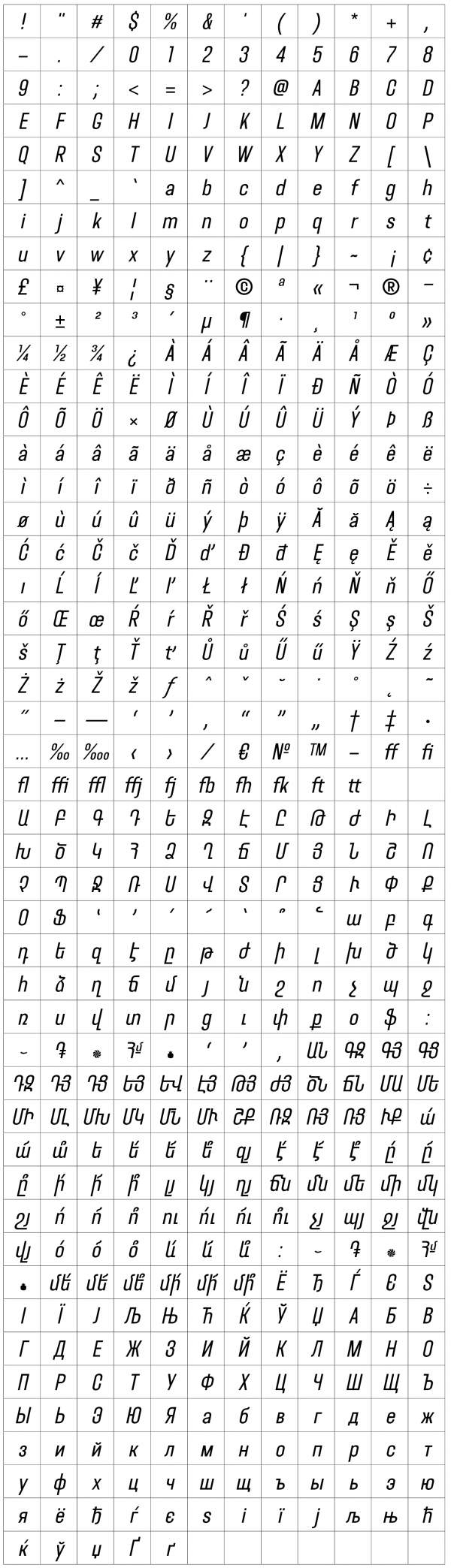
GHEA Avetiq Italic
Design date: 2024
Writing systems: Armenian, Latin Central European and Cyrillic.
Styles: 12 (Regular, Medium, SemiBold, DemiBold, Bold, ExtraBold and italics).
The Sans Serif font GHEA Avetiq has narrow proportions and can be used as title font, also for poster, books, albums, etc.